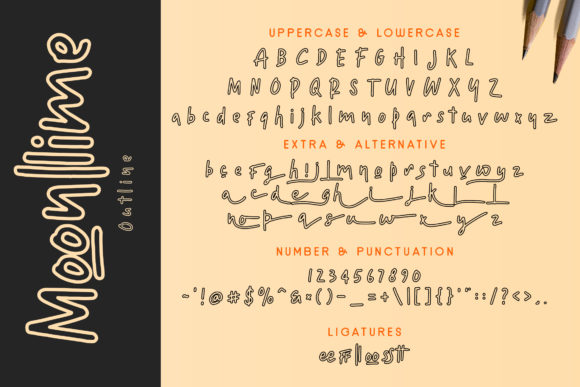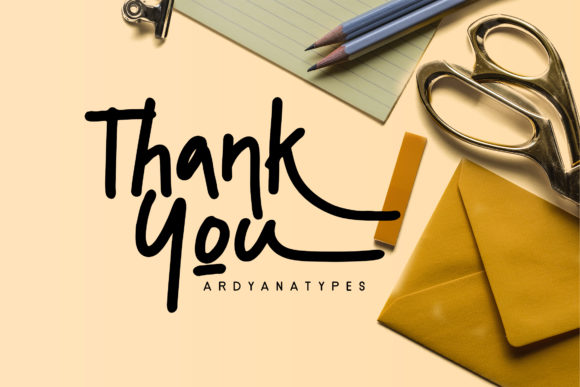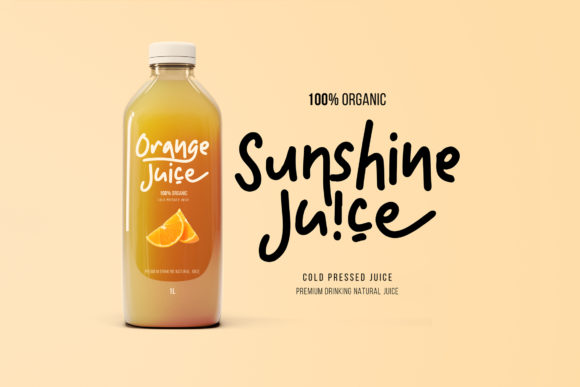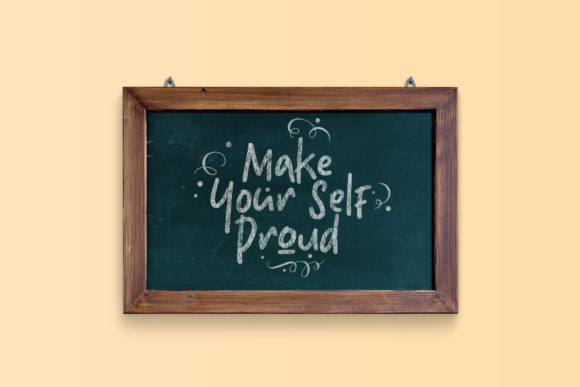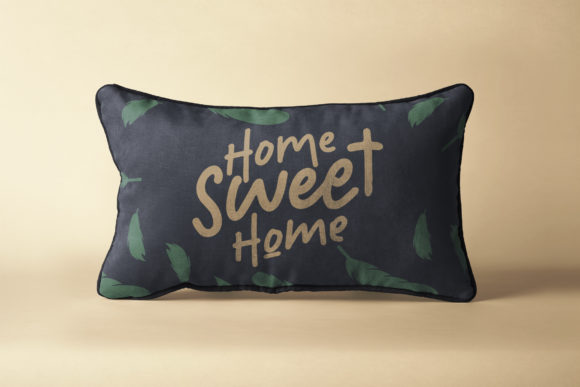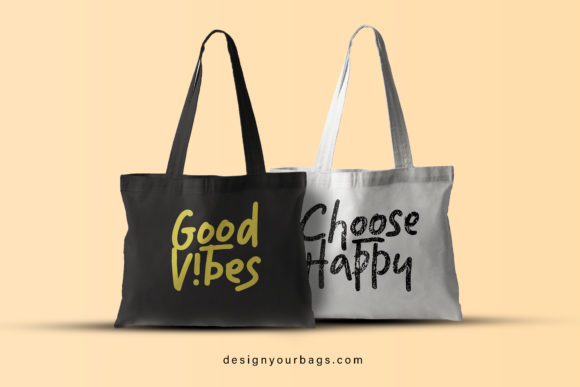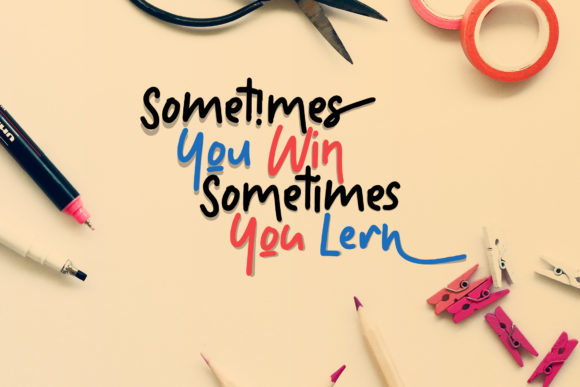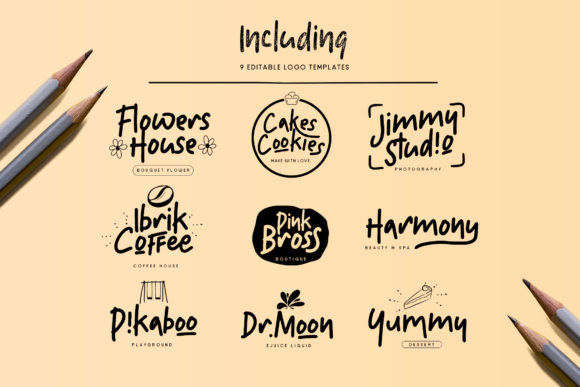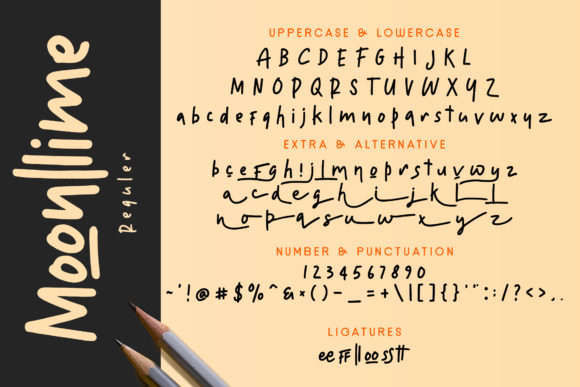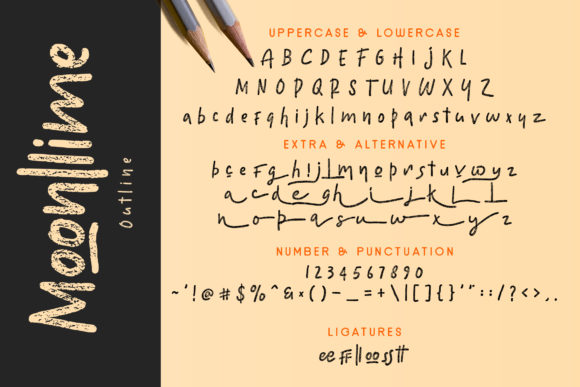
Moonllime Font
About Moonllime Font
Moonllime is a beautiful and effortless handwritten font with a unique elegance. It will elevate any design project!